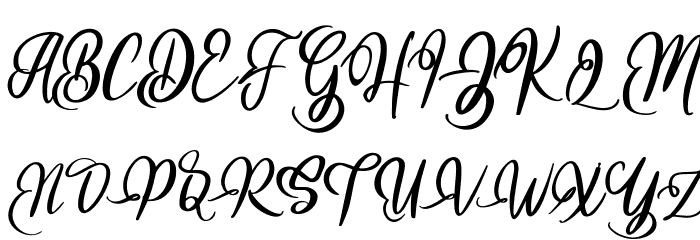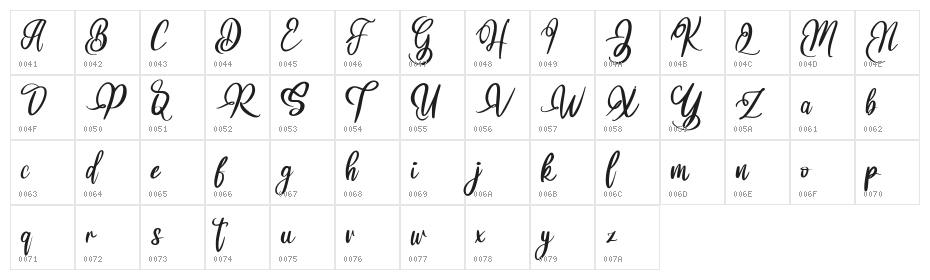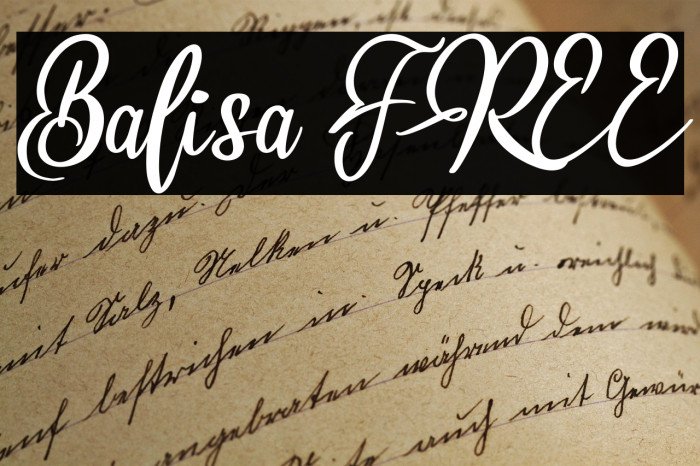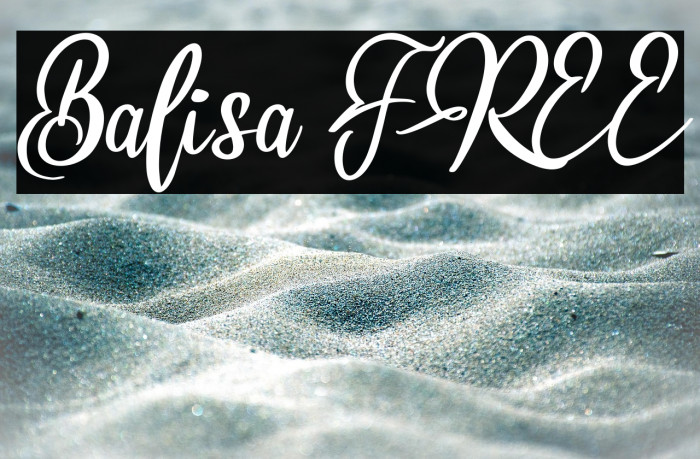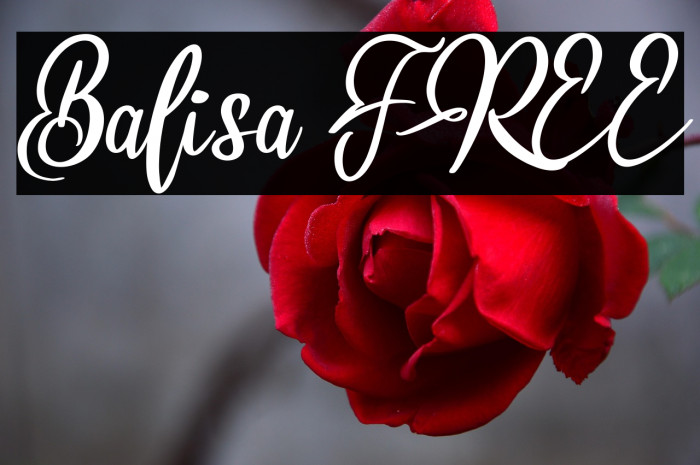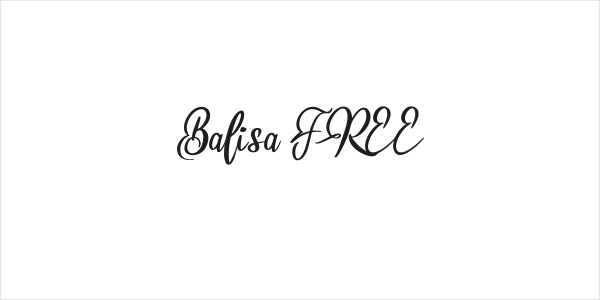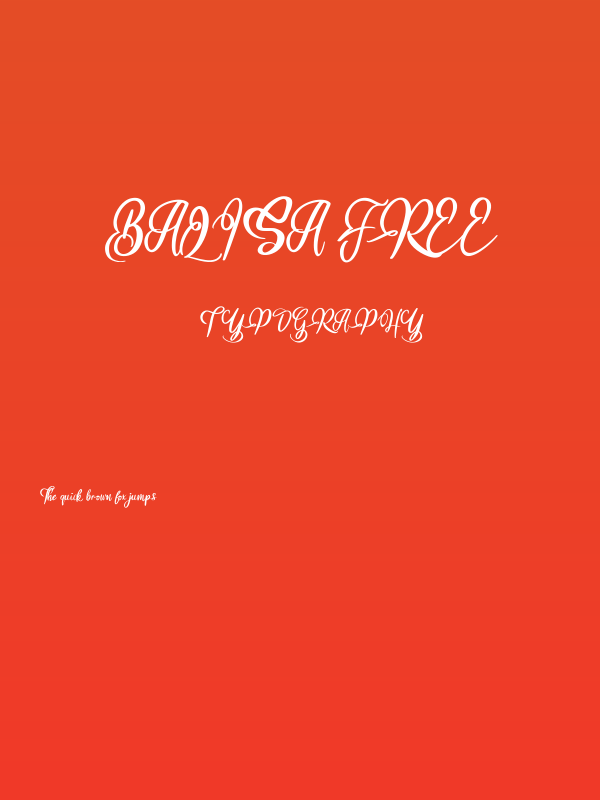
Balisa FREE Font
Balisa FREE Description
This font features an elegant and flowing script style, characterized by its smooth, cursive letterforms that convey a sense of sophistication and grace. The uppercase letters are ornate, with intricate loops and swashes that add a decorative flair, while the lowercase letters maintain a consistent, fluid motion. The font's design is both artistic and legible, making it suitable for a variety of creative applications. Its overall appearance is reminiscent of traditional calligraphy, yet it retains a modern touch that makes it versatile for contemporary design projects.